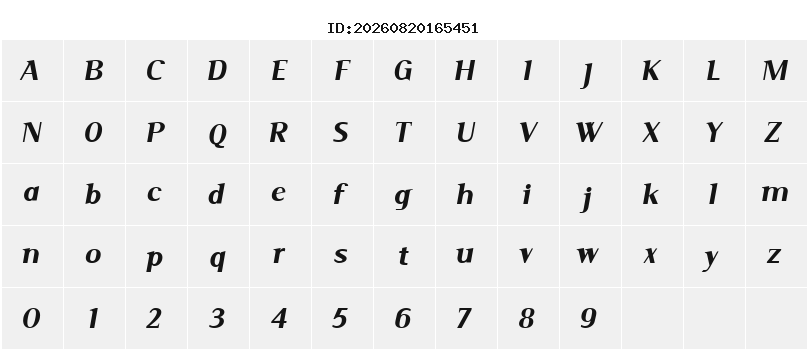
• Font Name: Serif Medium Italic
• Font Style: Serif Medium Italic
• Full Font Name: Serif Medium Italic
• PostScript Name: SerifMediumItalic
About Serif Medium Italic.ttf
Serif Medium Italic.ttf is a modern, elegant sans-serif font designed for ultimate readability and visual harmony. Perfect for branding, headlines, web design, and print materials.